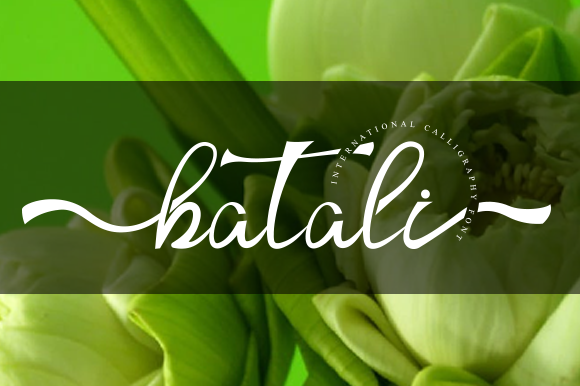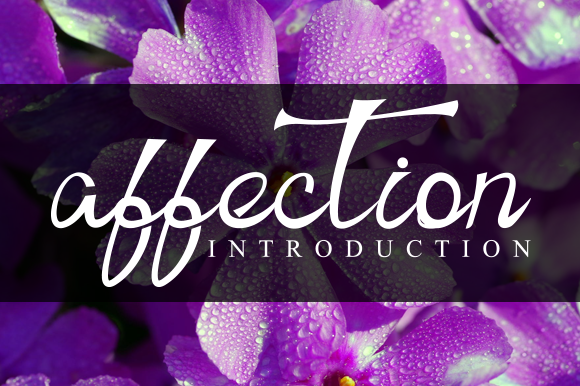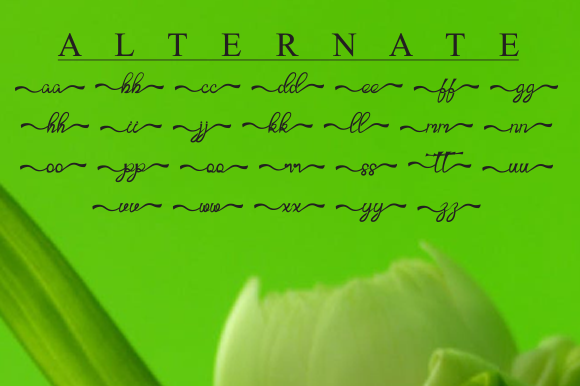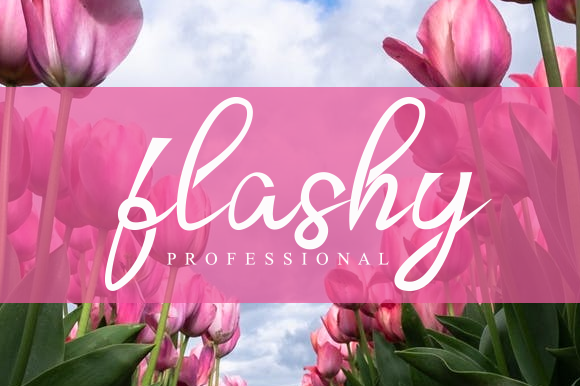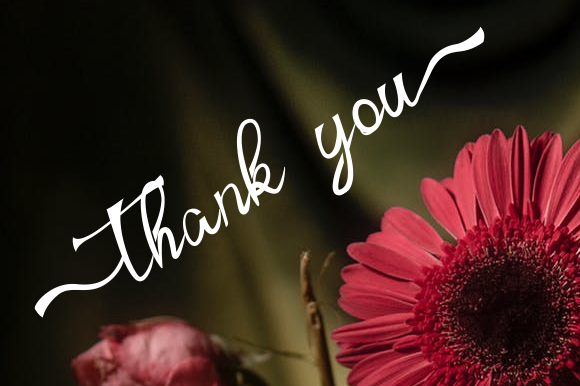
HomeScript FontsBatali Font Script Fonts Batali Font FacebookXPinterestWhatsApp Batali Font Poster 2 Batali Font Poster 3 Batali Font Poster 4 Batali Font Poster 5 About Batali Font Batali is a friendly flowing script font with a romantic style. Fall in love with its playful charm! DOWNLOAD ON CREATIVE FABRICAThis font is sold and delivered by Creative Fabrica. Font Canyon may earn a commission if you buy through this link. People also explored Alocasia Font Womance Font Carolvande Font Danitory Font Magicpearl Font Beautiful Signature Font Romantic Barista Font To Do – Weekly Font Belgedes Font 321 0 TagsBatali Font Previous articleIngry FontNext articleLove Diary Font LEAVE A REPLY Cancel reply Comment: Please enter your comment! Name:* Please enter your name here Email:* You have entered an incorrect email address! Please enter your email address here Website: Save my name, email, and website in this browser for the next time I comment. Personal Use Free Urkelian Personal Use Free Read more about this font Ardilla Font Personal Use Free Read more about this font Setta Personal Use Free Read more about this font Rafika Personal Use Free Read more about this font BLOG 5 Fonts That Will Dominate Design Trends in 2026 5 Fonts for 2026 That Will Dominate Design Trends Typography plays a critical role in visual communication, and as we look ahead to 2026, it’s... Where to Buy American Fonts Online in 2024 Best Fonts for YouTube Videos: Make Your Thumbnails Stand Out Using Fonts in Digital Marketing: Tips to Strengthen Your Brand Identity